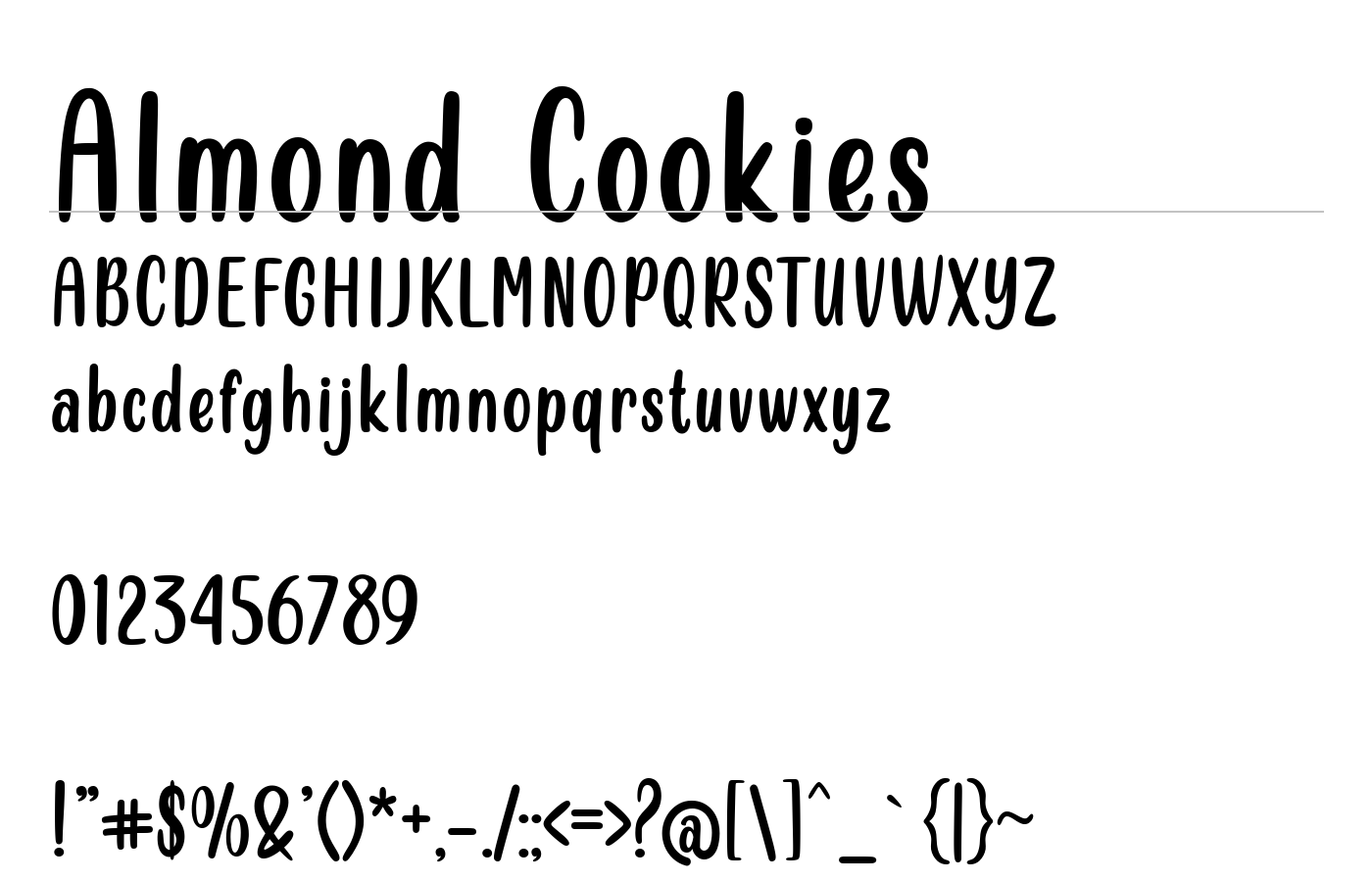
Almond Cookies is a playful and friendly sans serif font with a tall, narrow structure and smooth, rounded edges that give it a casual, hand-drawn feel. Its consistent weight and modest contrast make it highly legible, while the quirky letterforms add a unique charm suitable for fun and approachable branding, packaging, and headlines. This font is ideal for designs that want to convey warmth and creativity without losing clarity.
Almond Cookies Font
About Almond Cookies Font
| Font family | Almond Cookies Font |
| Designer | deedeetype |